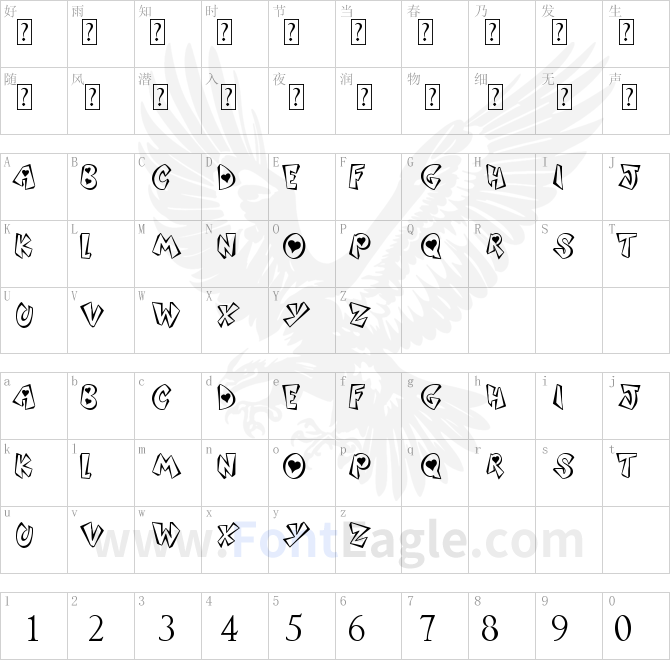
Sound-Heart is a great font, widely used in graphic design, single-page menu design, poster design and other fields, and is deeply loved by designers.Sound-Heart download.